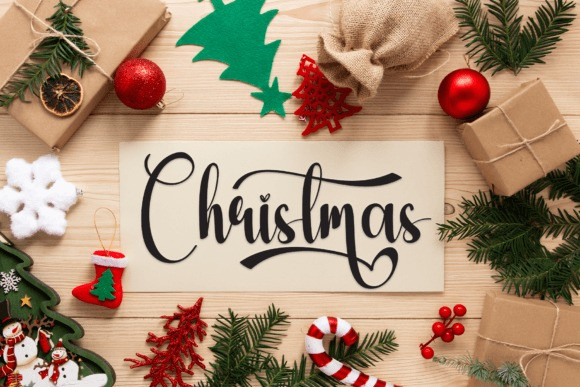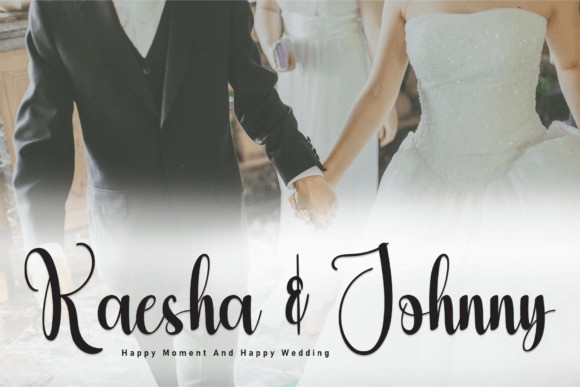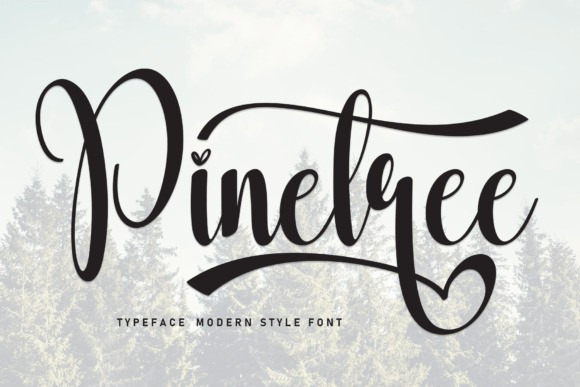
Pinetree Script Font
Pinetree Script Font is a fancy and elegant handcrafted font that was created to impress your audience and make your branding shine. Make your projects dance with this elegant and wonderful font wherever you use it.